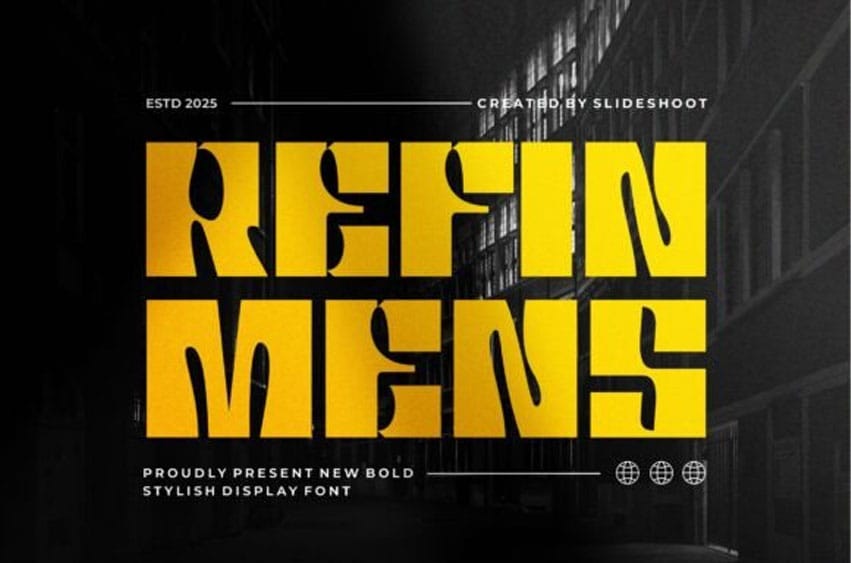
Refin Mens Font is a bold and expressive display font with striking shapes and abstract cuts.
This font brings a powerful, urban vibe to posters, album covers, streetwear branding, and bold headlines. It’s built to grab attention.